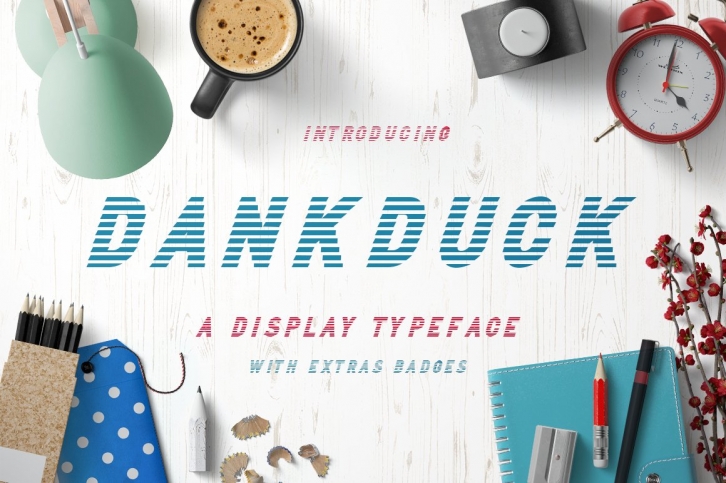
Inspired and themed by Labor Day as a Holiday Event, Dankduck is Line Typeface which gonna probably useful at your Display, or Headline work. With only standard feature, Dankduck gonna able to perform well as aesthetic value at your artworks.
Consists of uppercases, lowercase, numbers & basic punctuation.